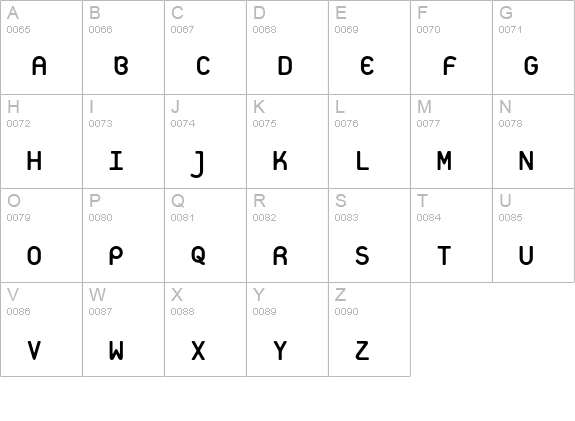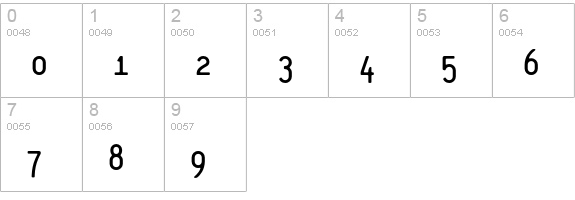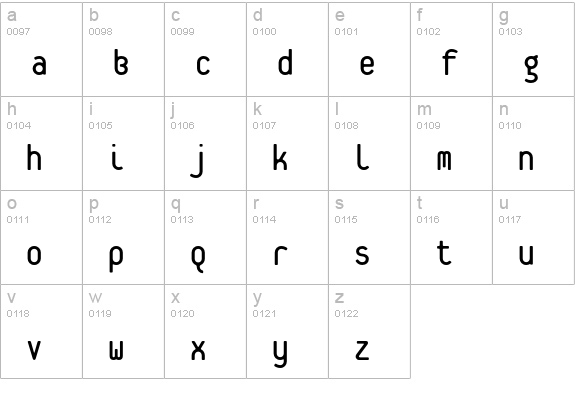
Platelet font is a modern and stylish typeface that exudes elegance and sophistication. Its sleek lines and geometric shapes make it perfect for a wide range of design projects, from branding to editorial design. The clean and minimalist design of Platelet font ensures readability and versatility, making it suitable for both headlines and body text. What sets Platelet font apart is that it is available for free download at FontsMarket.com. This means that designers and creatives can easily access this high-quality font without any cost, making it a valuable addition to any font library. Whether you're working on a print project or a digital design, Platelet font is sure to elevate your work with its timeless appeal and modern aesthetic. Download Platelet font today and add a touch of sophistication to your designs.